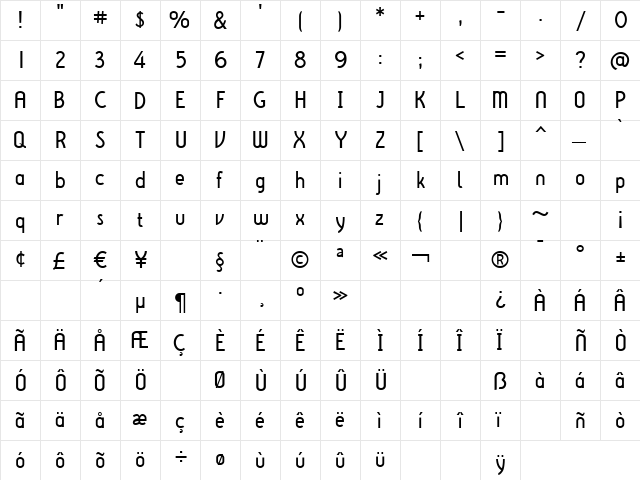
Iru2Regular Regular
Design Context for Iru2Regular Typeface
Iru2Regular takes a measured approach to typography — its balanced proportions and neutral character make it a reliable workhorse for both digital and print work.